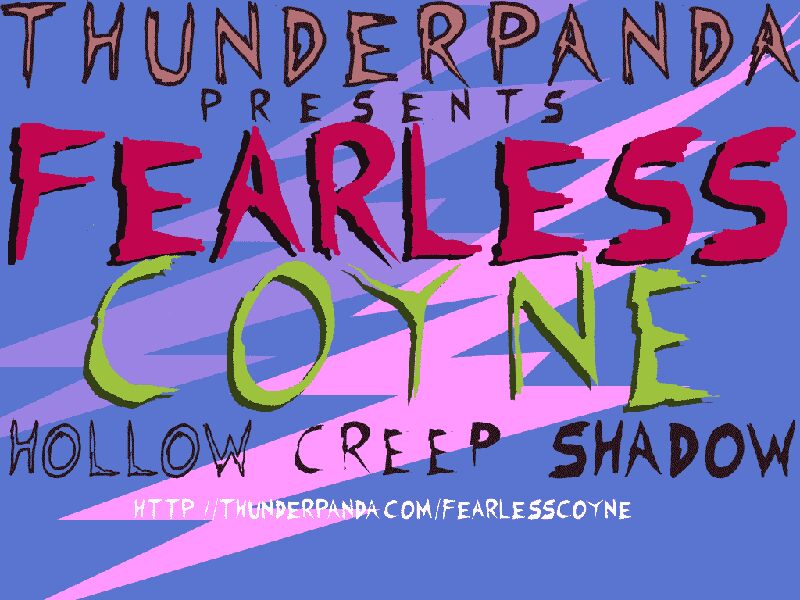
Fearless Coyne Shadow is a free horror display font with rough, brush-cut capitals and an unruly silhouette. Stroke widths shift sharply, leaving blunt ends and ragged edges throughout the lettering. The uneven forms give each word an urgent, raw force.
Its horror-film character suits title cards, haunted attraction posters, and heavy-metal merchandise. The scratched, hand-painted attack also suits grim album artwork. It is aimed squarely at designers working in underground music, low-budget horror, and Halloween entertainment.
Fearless Coyne Shadow